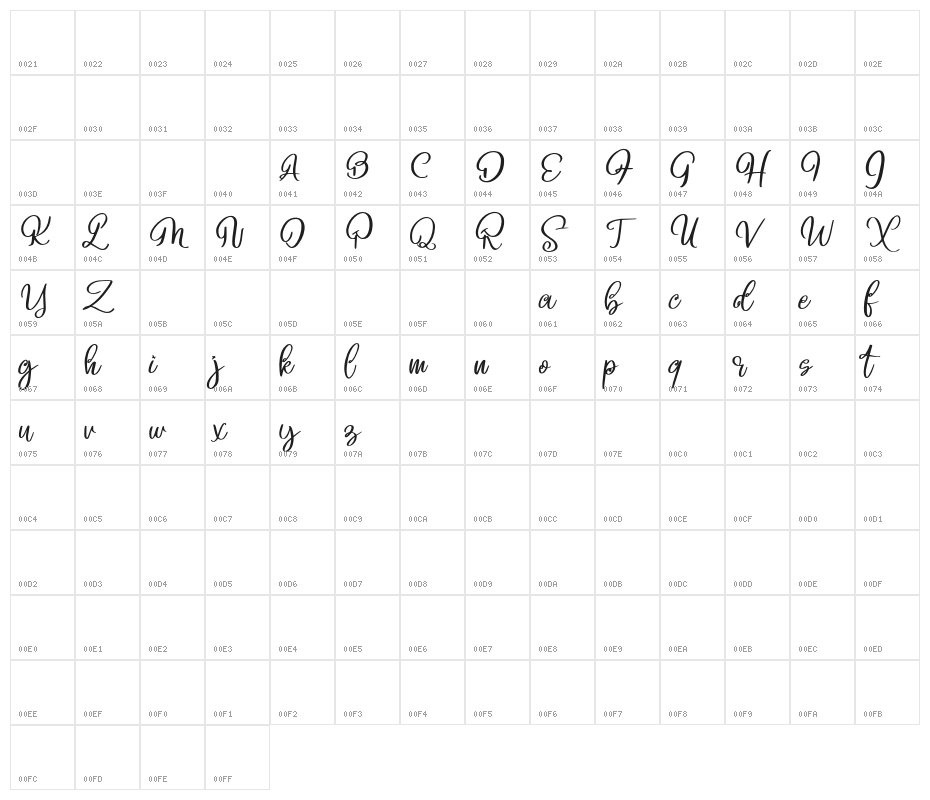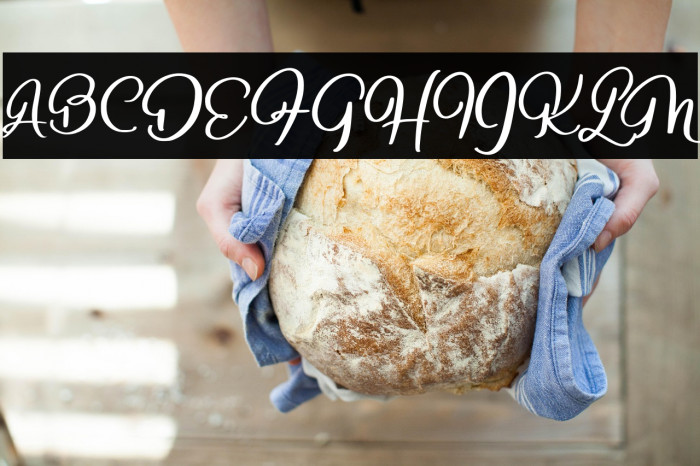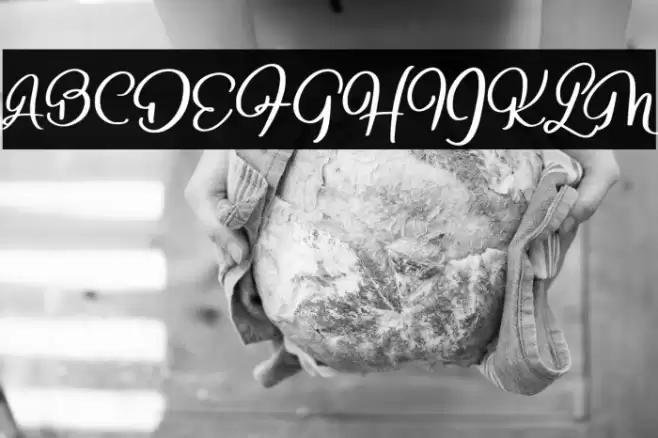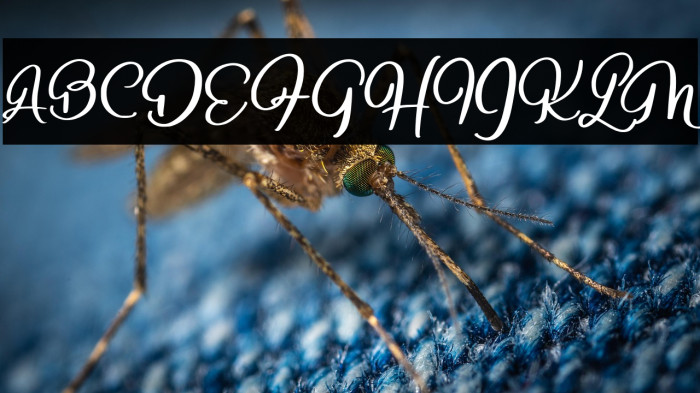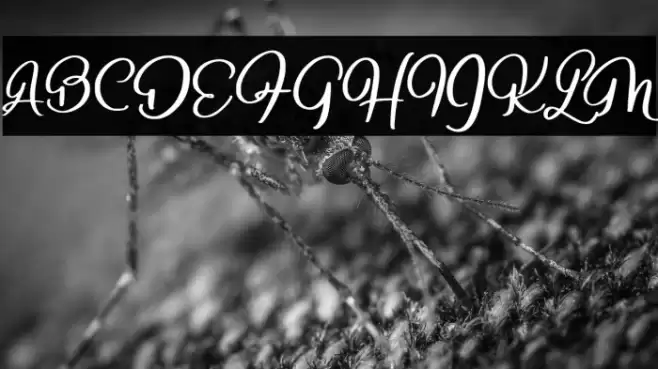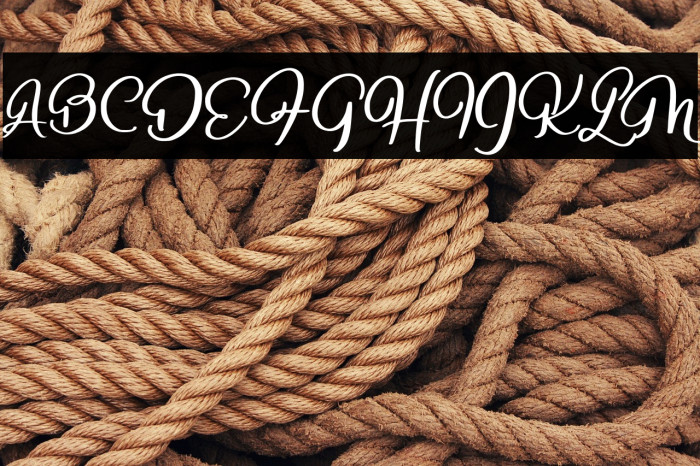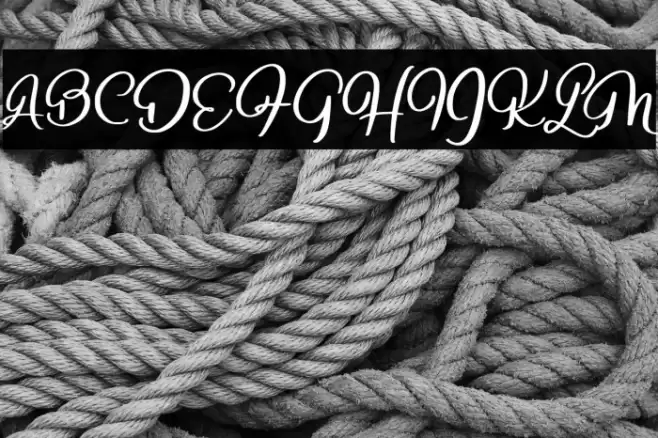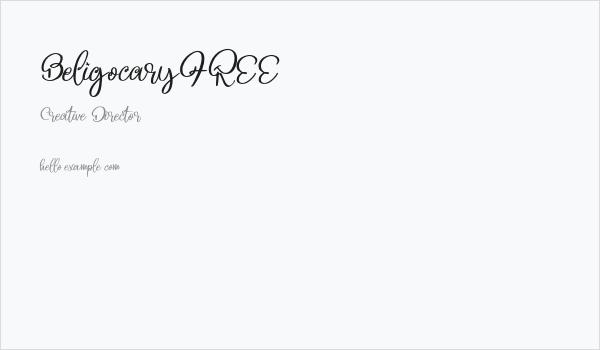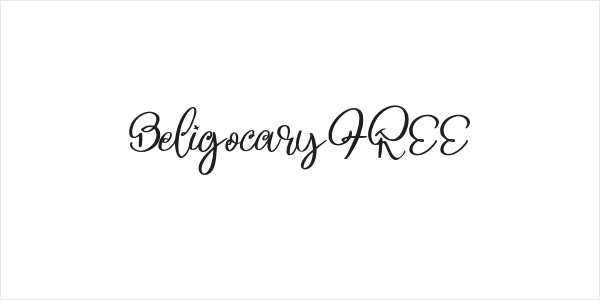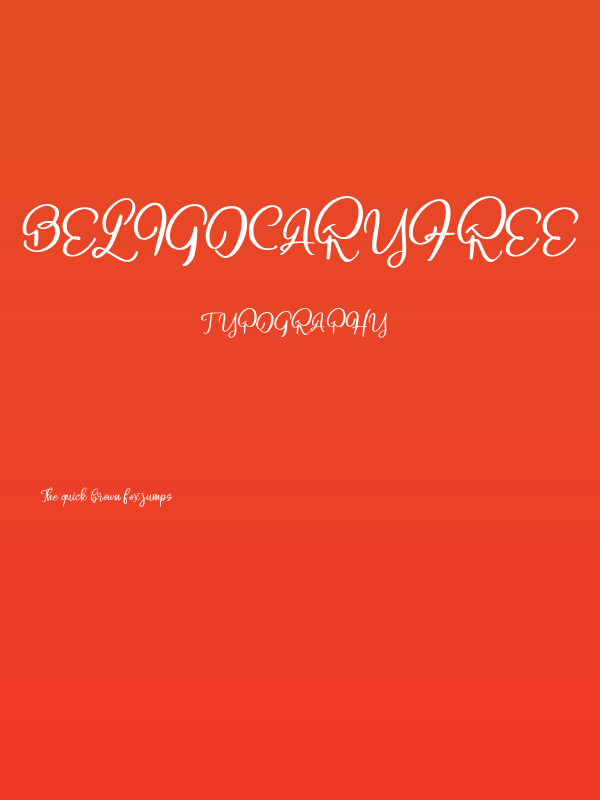
BeligocaryFREE Font
BeligocaryFREE Description
This font features a flowing, cursive style with elegant loops and flourishes, giving it a handwritten appearance. The uppercase letters are bold and sweeping, with distinctive curves that add a touch of sophistication. The lowercase letters maintain a consistent flow, with some characters extending below the baseline, enhancing the script's fluidity. The numbers and special characters are designed to match the overall aesthetic, ensuring a cohesive look across all text. This font is perfect for projects that require a personal, artistic touch.